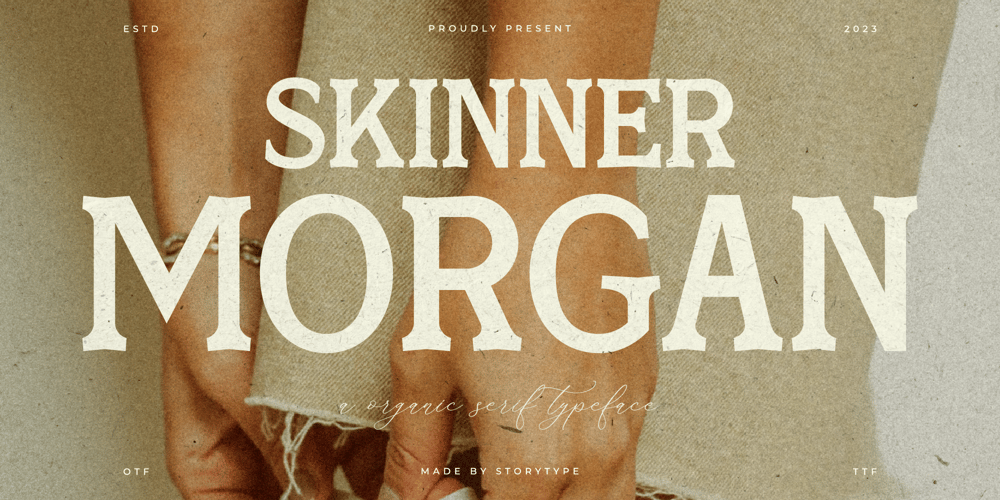
Skinner Morgan Font Family was designed by Heru Utama Putra and published by Letterena Studios. Skinner Morgan contains 2 styles and family package options. Skinner Morgan is a modern and classic serif typeface. This font is perfect for an elegant & luxury logo, book or movie title design, fashion brand, magazine, clothes, lettering, quotes, and so much more.